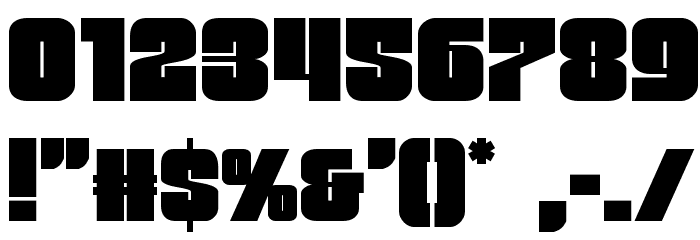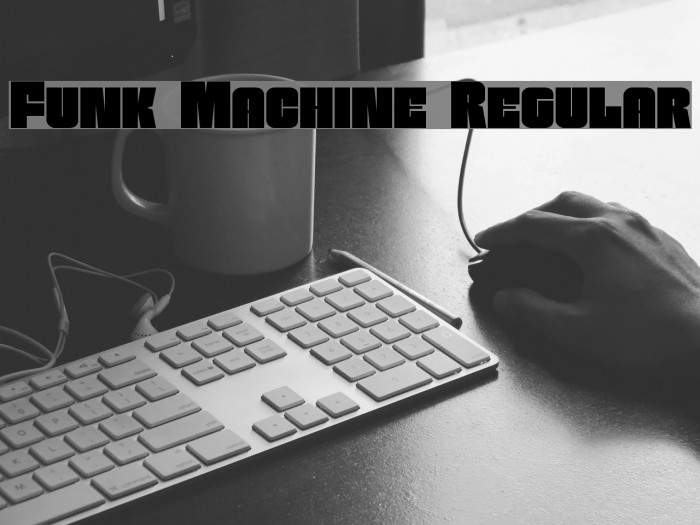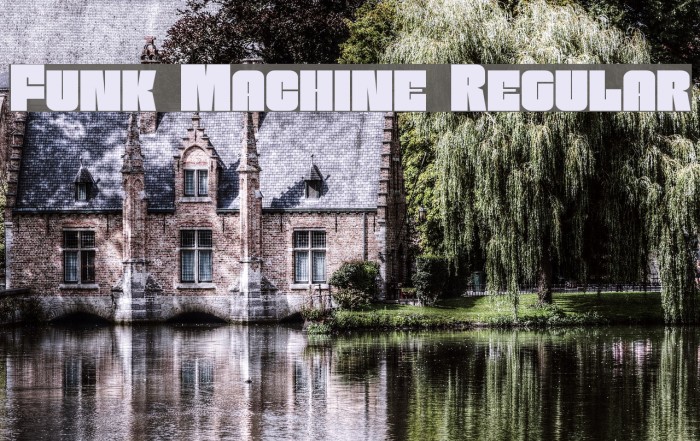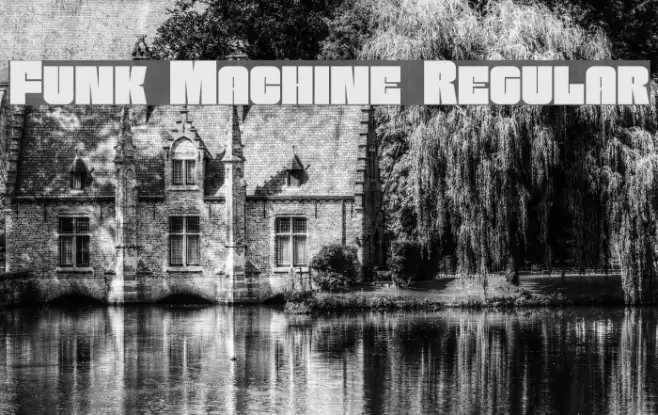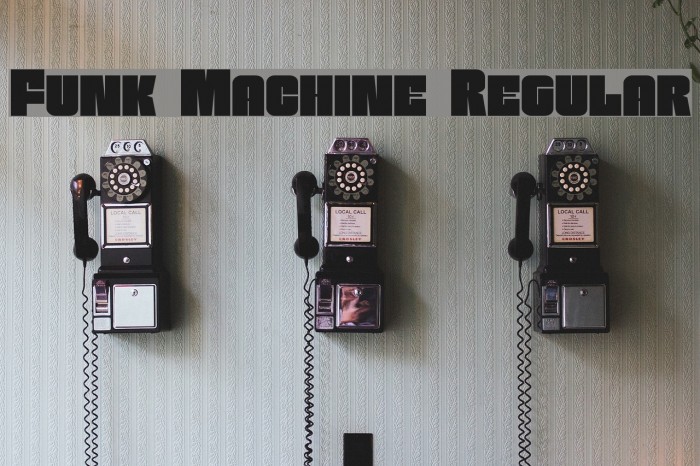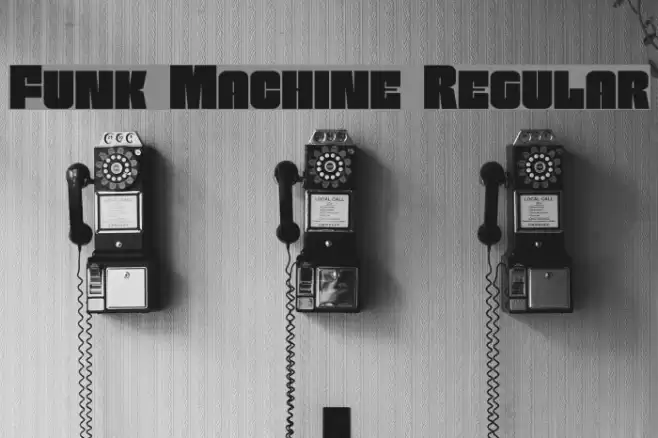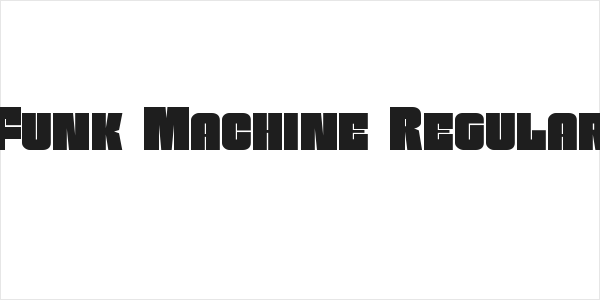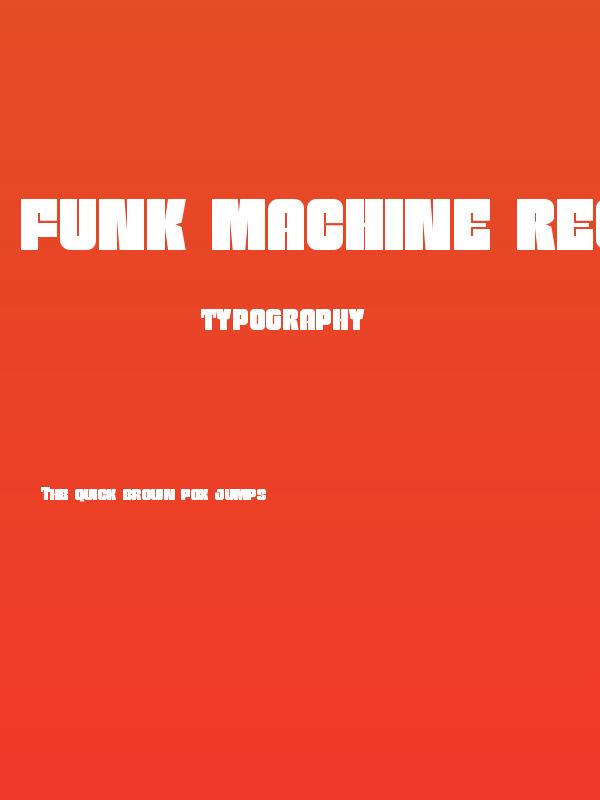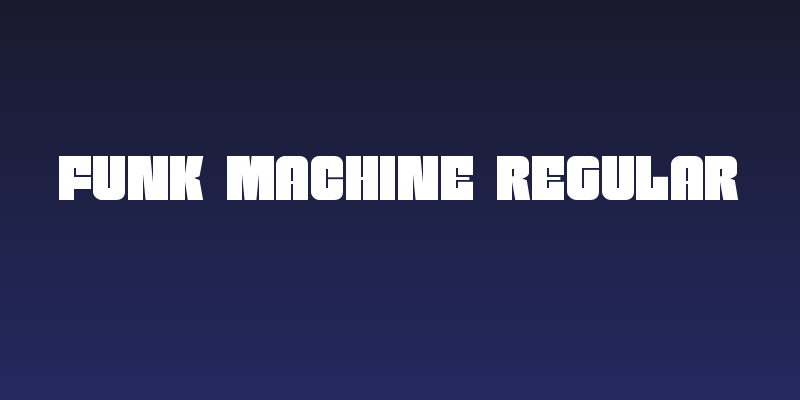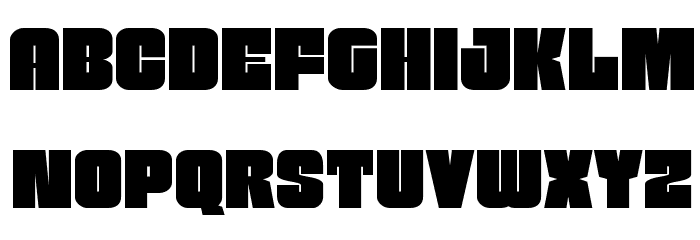
Funk Machine Regular Font
Funk Machine Regular Description
This font exhibits a bold and impactful style with a strong presence. The characters are blocky and wide, creating a sense of stability and strength. Each letter is distinct with minimal spacing between them, emphasizing a compact and cohesive look. The uniform stroke width across all characters contributes to a consistent and powerful visual impact. This font is particularly suited for designs that require a commanding and assertive appearance, making it ideal for headlines and attention-grabbing text.
Proposed ProjectsIdeal for posters, logos, and headlines that need a bold and impactful presence.